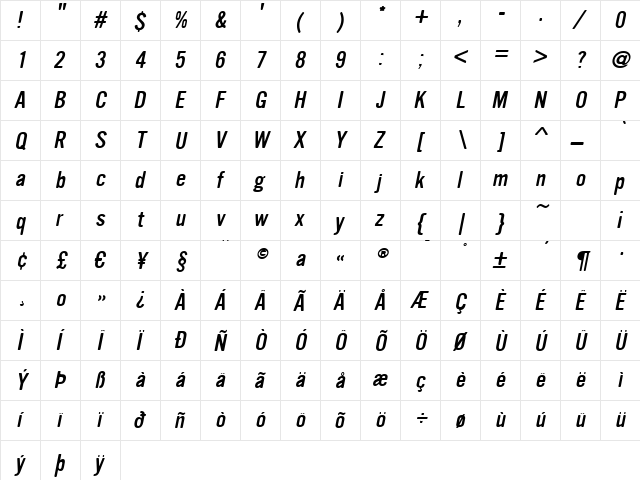
VinylOblique Regular
Design Context for VinylOblique Typeface
VinylOblique is a composed and adaptable typeface that performs quietly and consistently across a wide range of design contexts. Its italic angle brings a sense of urgency and motion to the letterforms.
Pro Tip: Use VinylOblique for emphasis, pull quotes, and subheadings where its slanted energy can add rhythm to the layout.